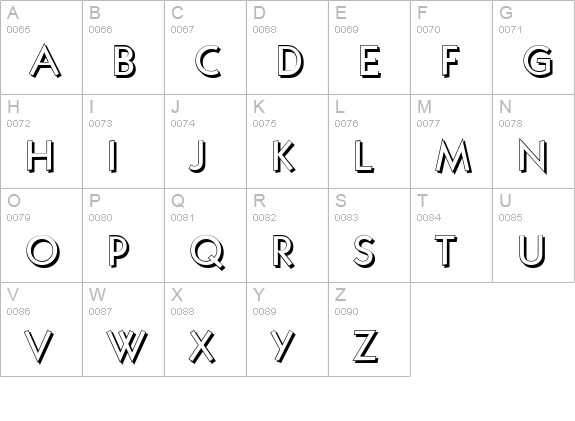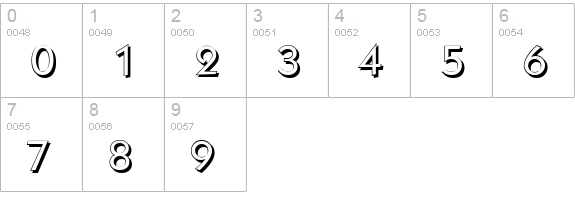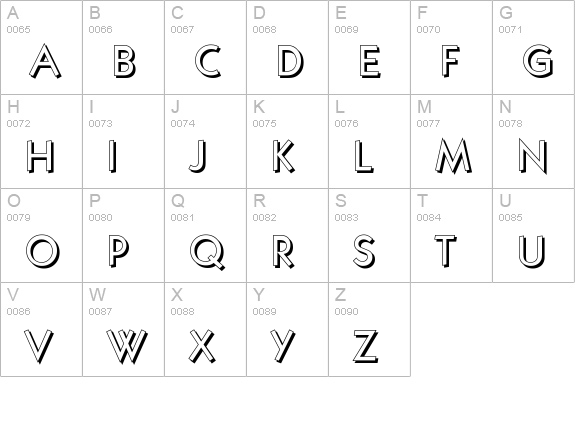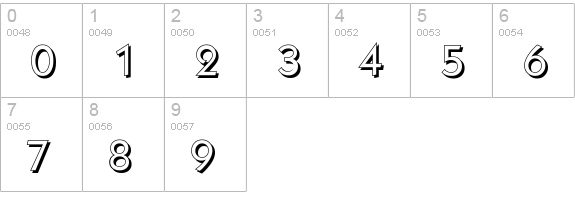
KoblenzShadow-Regular is the standard, neutral variant in the KoblenzShadow typeface family \xE2\x80\x94 well suited to general body text, paragraphs, and standard typographic work.
KoblenzShadow-Regular font is a stunning display typeface that exudes elegance and sophistication. Its unique shadow effect adds depth and dimension to any design project, making it perfect for headlines, logos, and other creative applications. The font features clean lines and a modern aesthetic that will instantly elevate your designs. Best of all, KoblenzShadow-Regular font is available for free download at FontsMarket.com. This means you can easily access this high-quality typeface without any cost, making it a valuable addition to your font library. Don't miss out on the opportunity to enhance your projects with the beauty and versatility of KoblenzShadow-Regular font. Download it today and start creating stunning designs that stand out from the crowd.